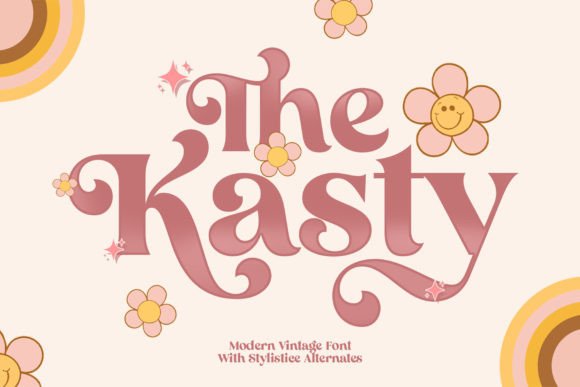
Introducing The Kasty Font, the epitome of sophistication and creativity in the world of typography. This exquisite serif font, meticulously crafted by dnartdesignn, is designed to leave an indelible mark on your design projects, branding, and personal expressions. Step into a realm of elegance and timeless beauty with The Kasty Font.
With its captivating curves, delicate serifs, and harmonious letterforms, The Kasty Font exudes a distinct charm that will elevate your designs to new heights. Its versatility extends across a wide range of applications, making it the perfect choice for logos, greeting cards, title packaging, branding materials, and any project yearning for a touch of sophistication.
Unleash your creativity and let The Kasty Font weave its magic into your design tapestry. Its timeless appeal will add a touch of elegance to your branding, while its modern aesthetic will ensure your designs remain relevant and captivating. Elevate your design game and stand out from the crowd with The Kasty Font.
The Kasty Font is more than just a font; it's an artistic tool that empowers you to transform your ideas into stunning visual masterpieces. Its carefully crafted characters will add depth and dimension to your designs, capturing the attention of your audience and leaving a lasting impression.
So embark on this creative journey with The Kasty Font as your trusted companion. Let its elegance, versatility, and timeless beauty inspire you to create designs that resonate with your audience and leave an unforgettable impression. Embrace the power of The Kasty Font and unlock the full potential of your design vision today.